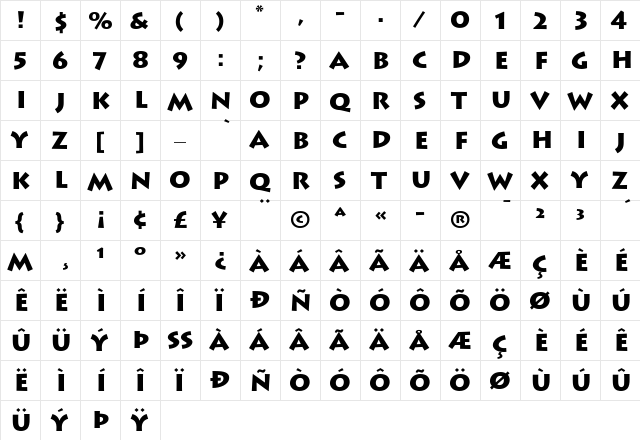
Lithos Regular Bold
Design Context for Lithos Regular Typeface
Lithos Regular is a composed and adaptable typeface that performs quietly and consistently across a wide range of design contexts. The heavy weight commands attention and anchors typographic hierarchies.